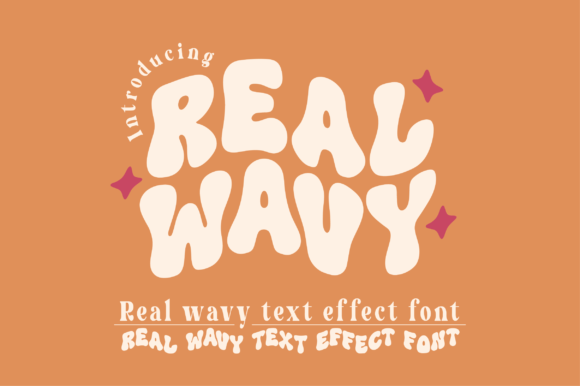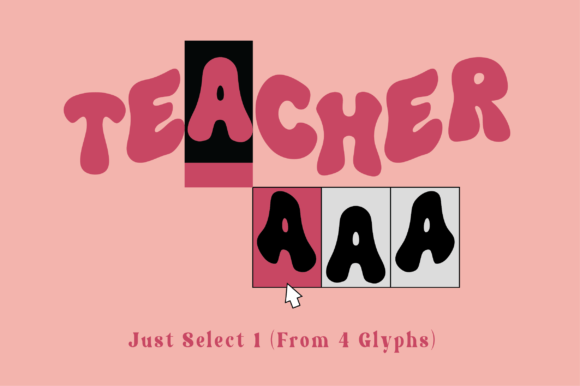
Real Wavy Font
Real Wavy is a bold and quirky display font. Use it on your retro-themed projects, banners, social media, invitations, cards and so much more.